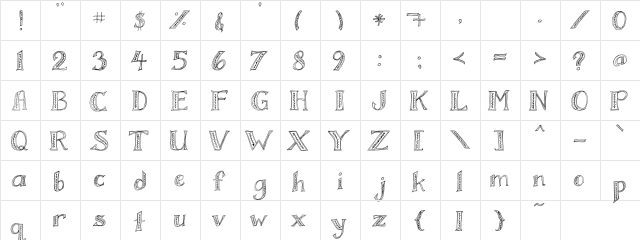
LOT Alpine Vine Regular
Design Context for LOT Alpine Vine Typeface
LOT Alpine Vine is a composed and adaptable typeface that performs quietly and consistently across a wide range of design contexts.